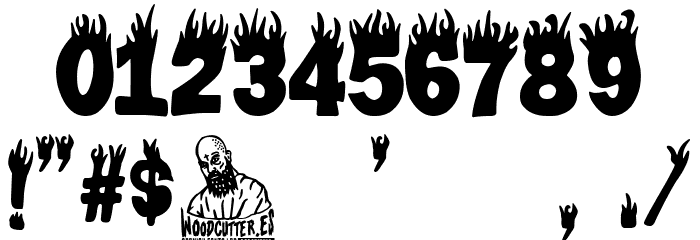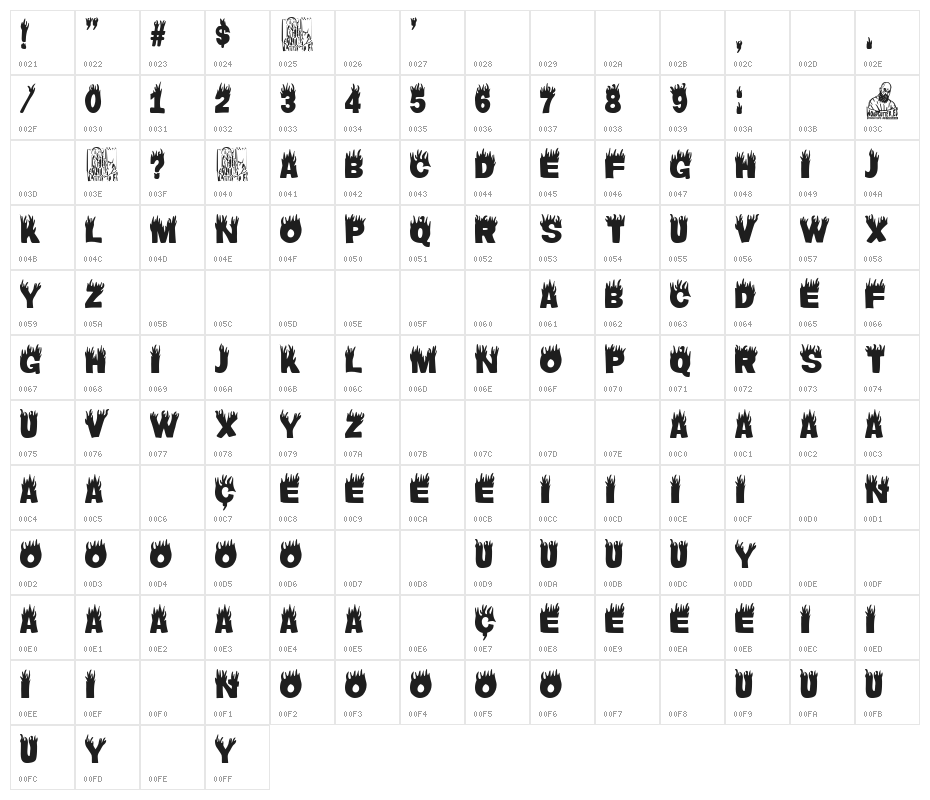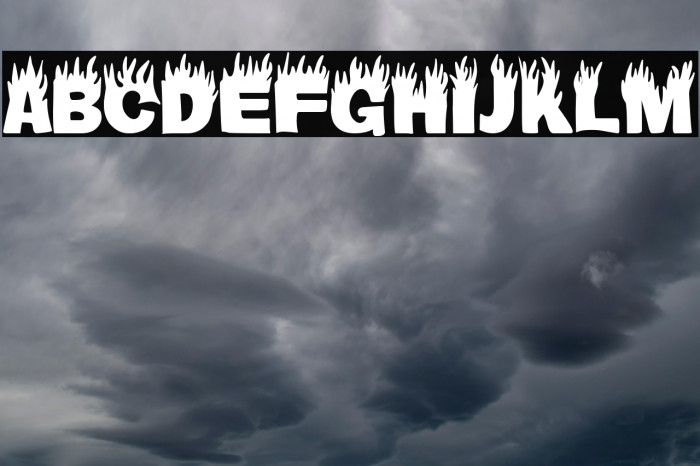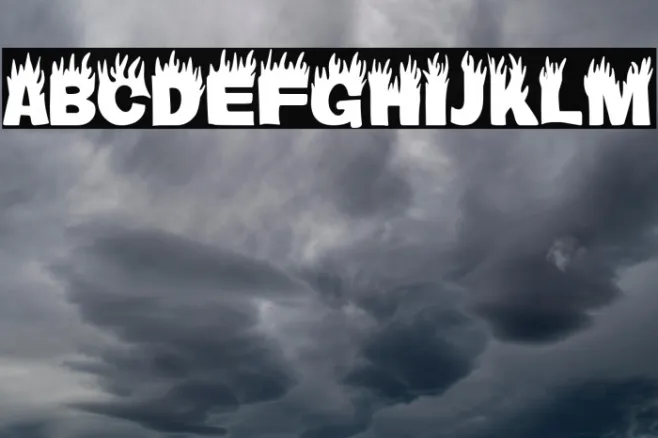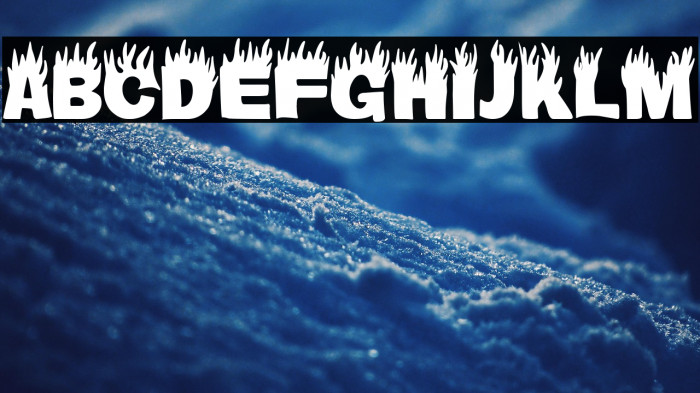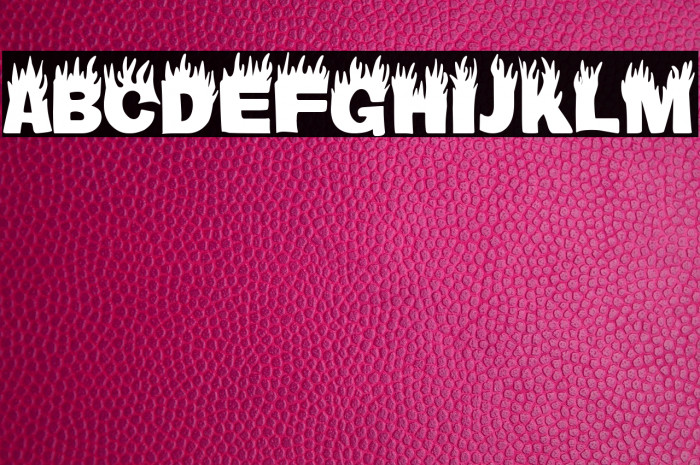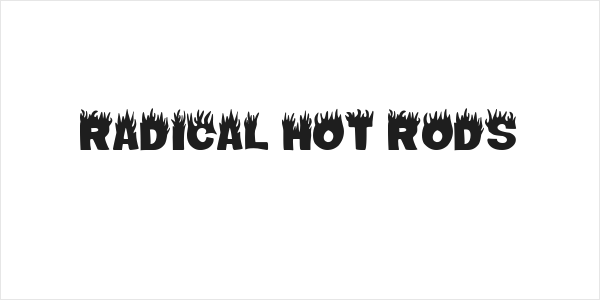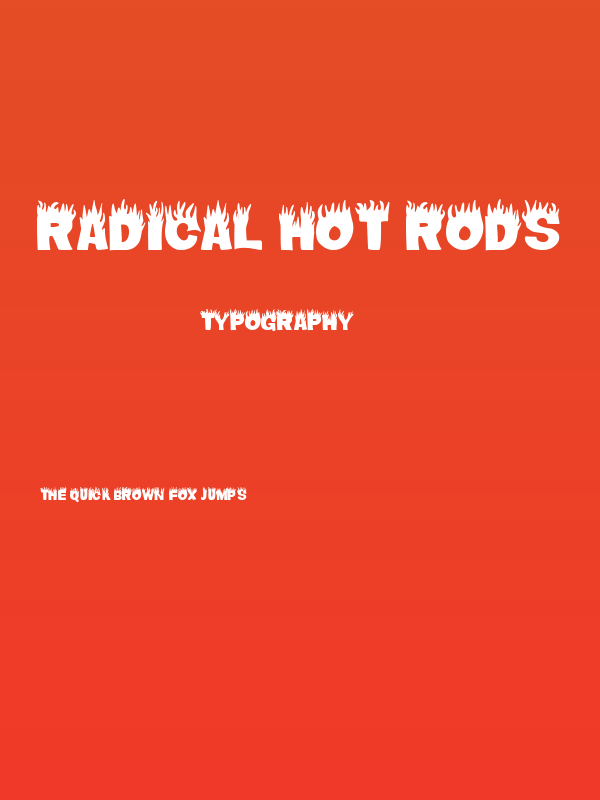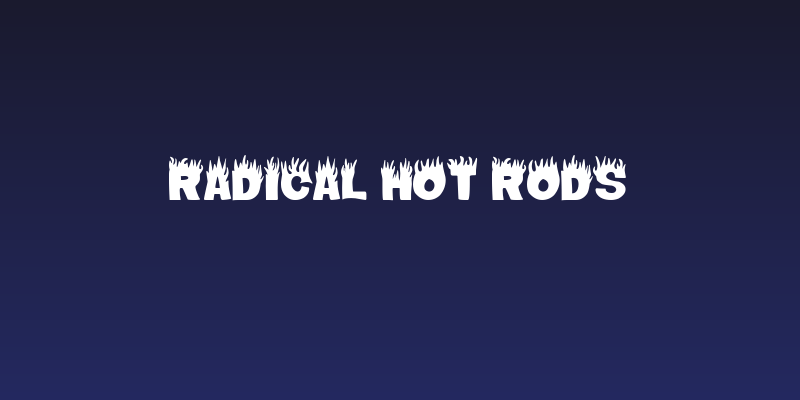
Radical Hot Rods Font
Radical Hot Rods Description
This font features bold, uppercase letters with a distinctive flame motif extending from the top of each character, creating a dynamic and energetic appearance. The design is consistent across both uppercase and lowercase letters, as well as numbers and special characters, maintaining the fiery theme. The bold strokes and unique style make it stand out, ideal for projects requiring a strong visual impact. The font's playful yet aggressive look is perfect for themes related to speed, excitement, or rebellion.
| Proposed Projects | Ideal for automotive branding, event posters, music album covers, or any project needing a bold, fiery aesthetic. |